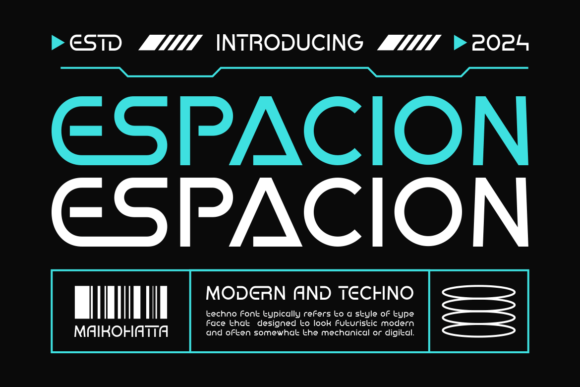
Espacion Font: The Ultimate Modern Techno Font for Futuristic Designs Introducing **Espacion**, a revolutionary modern techno font that embodies the
Continue readingIntroducing Espacion: The Modern Techno Font Revolutionizing Design In the rapidly evolving world of design, staying ahead of the curve